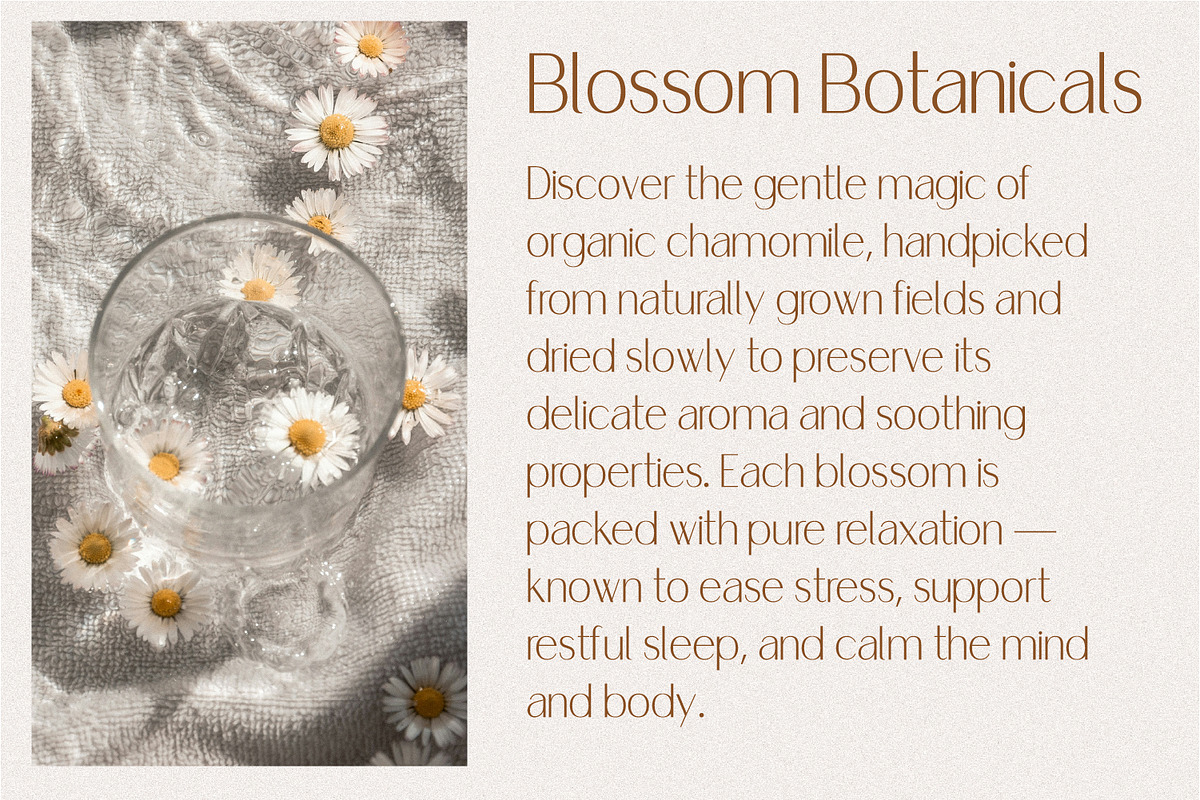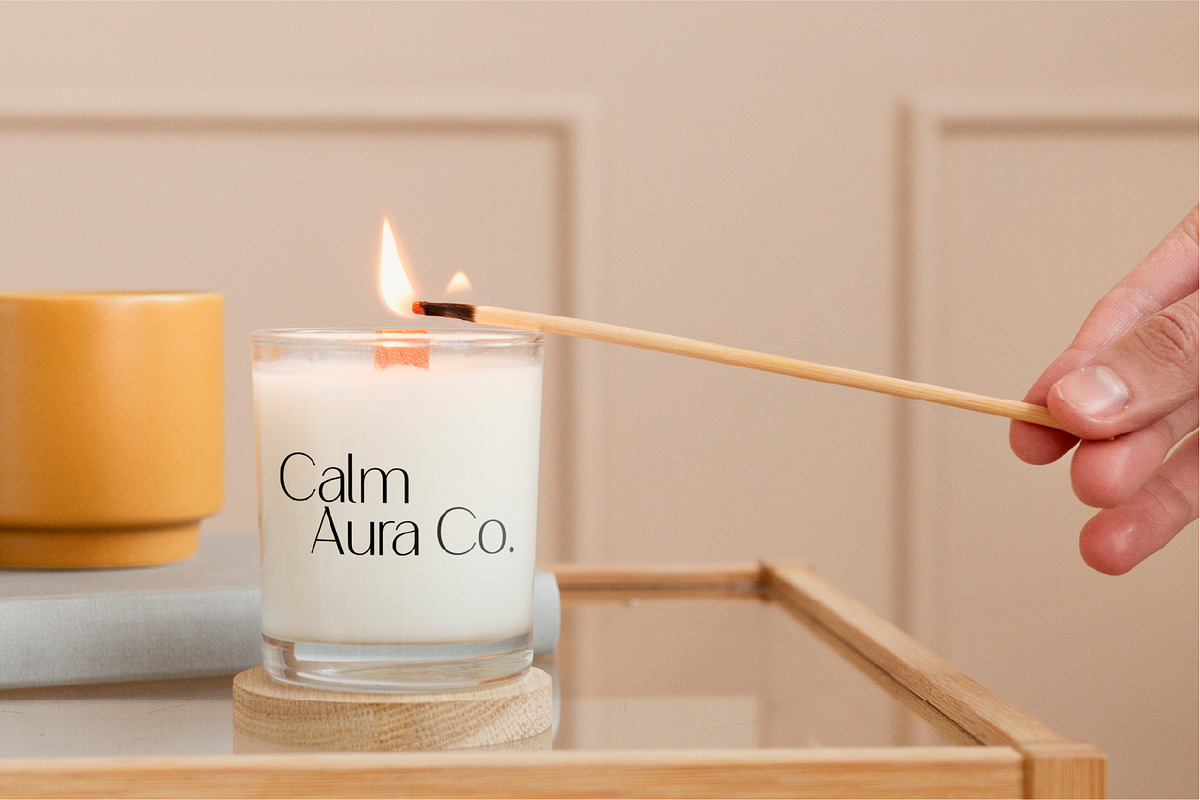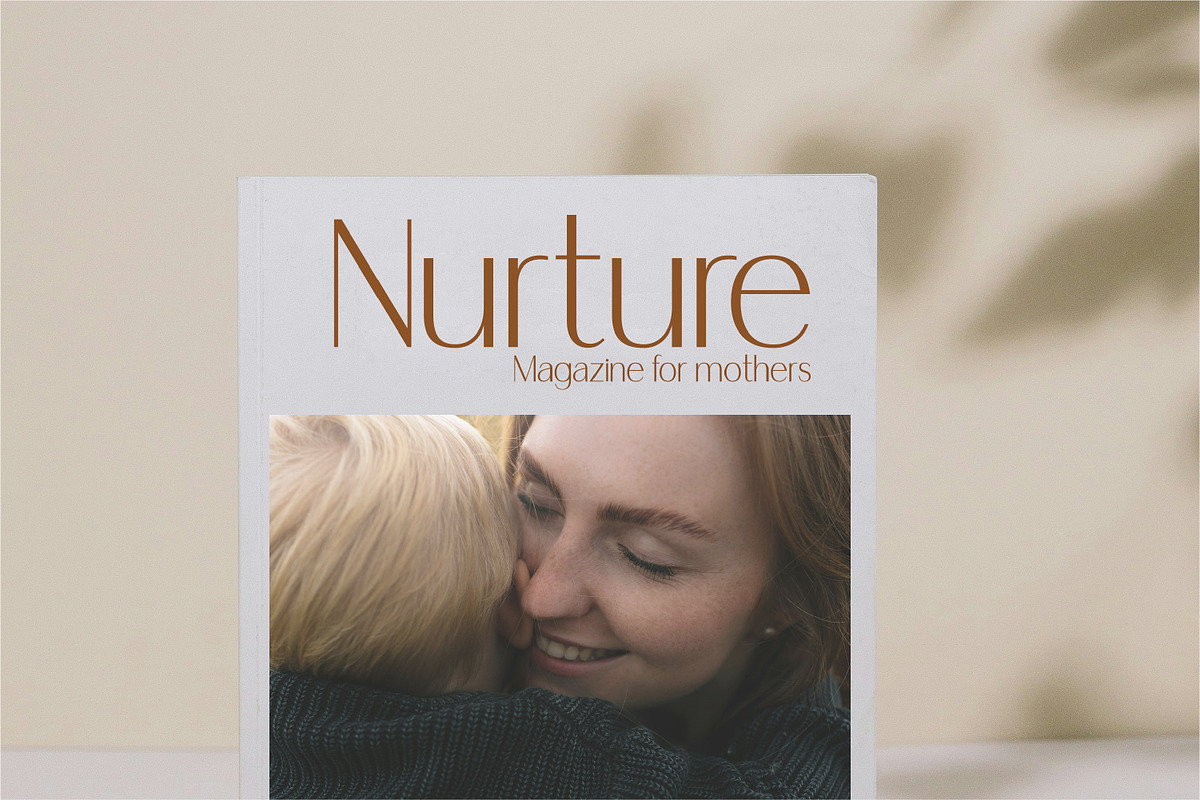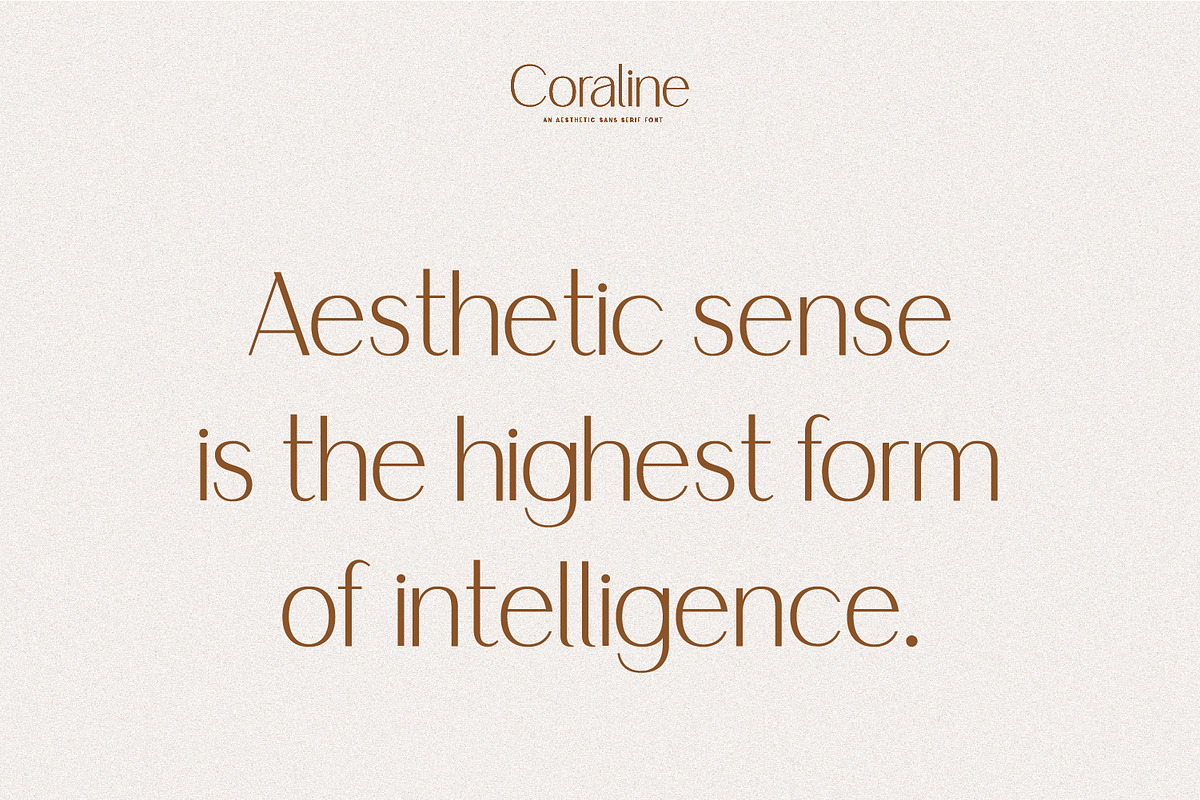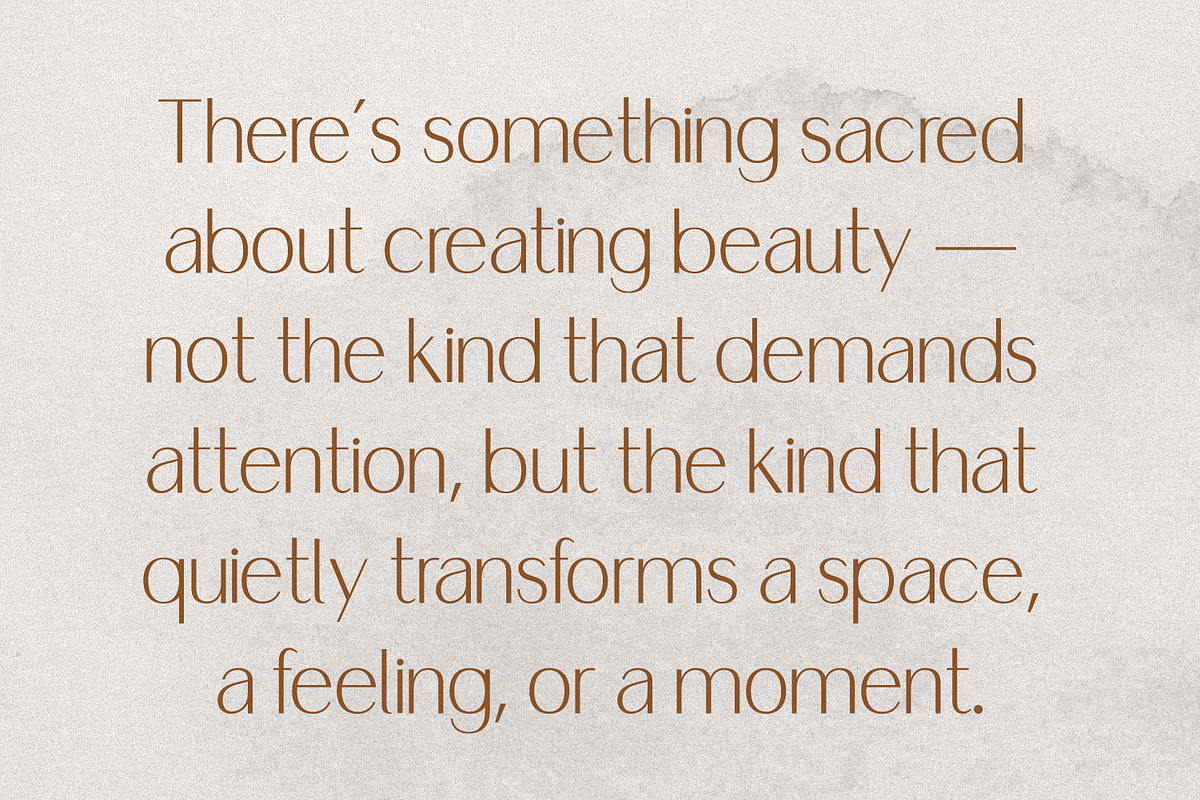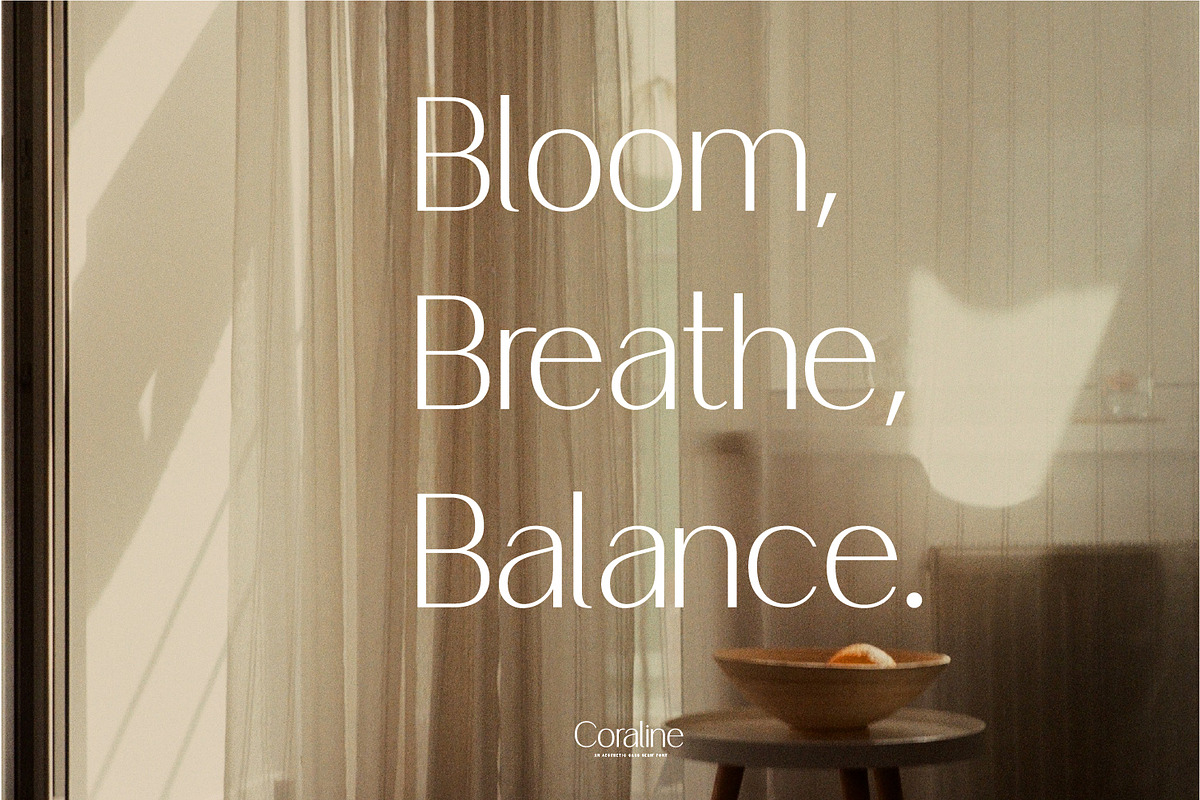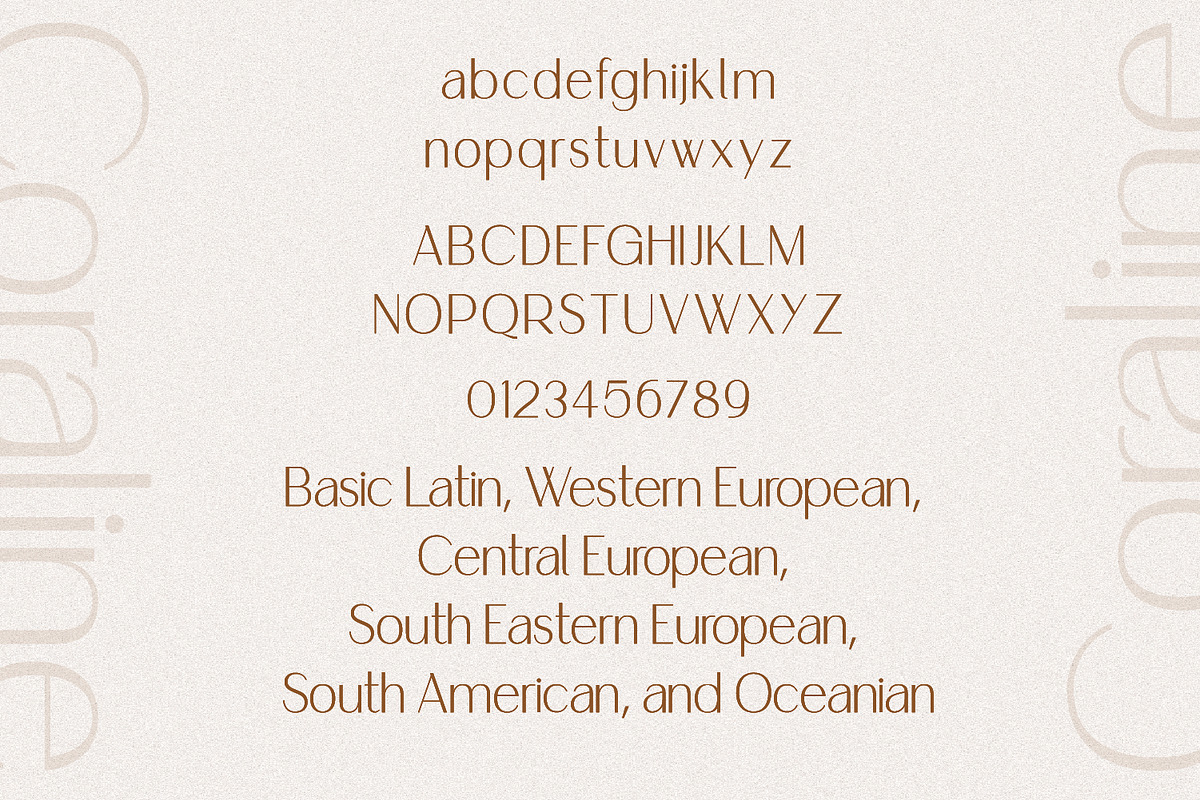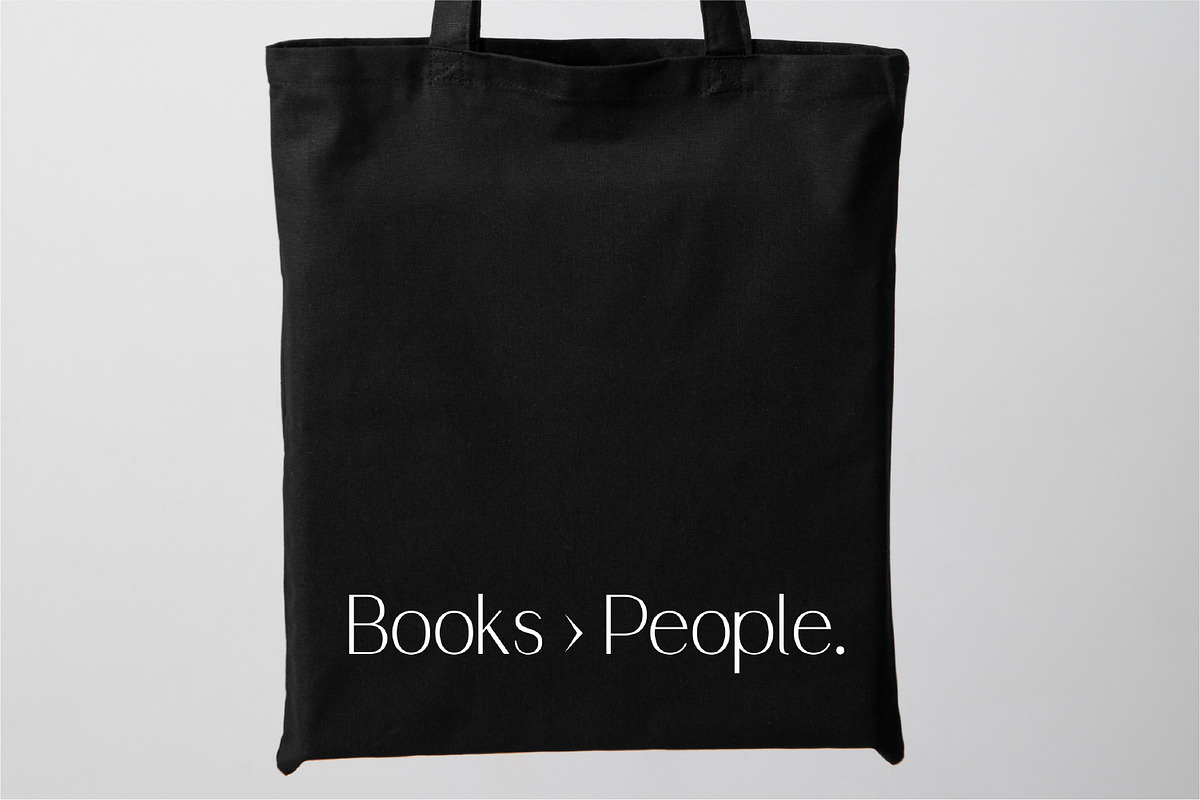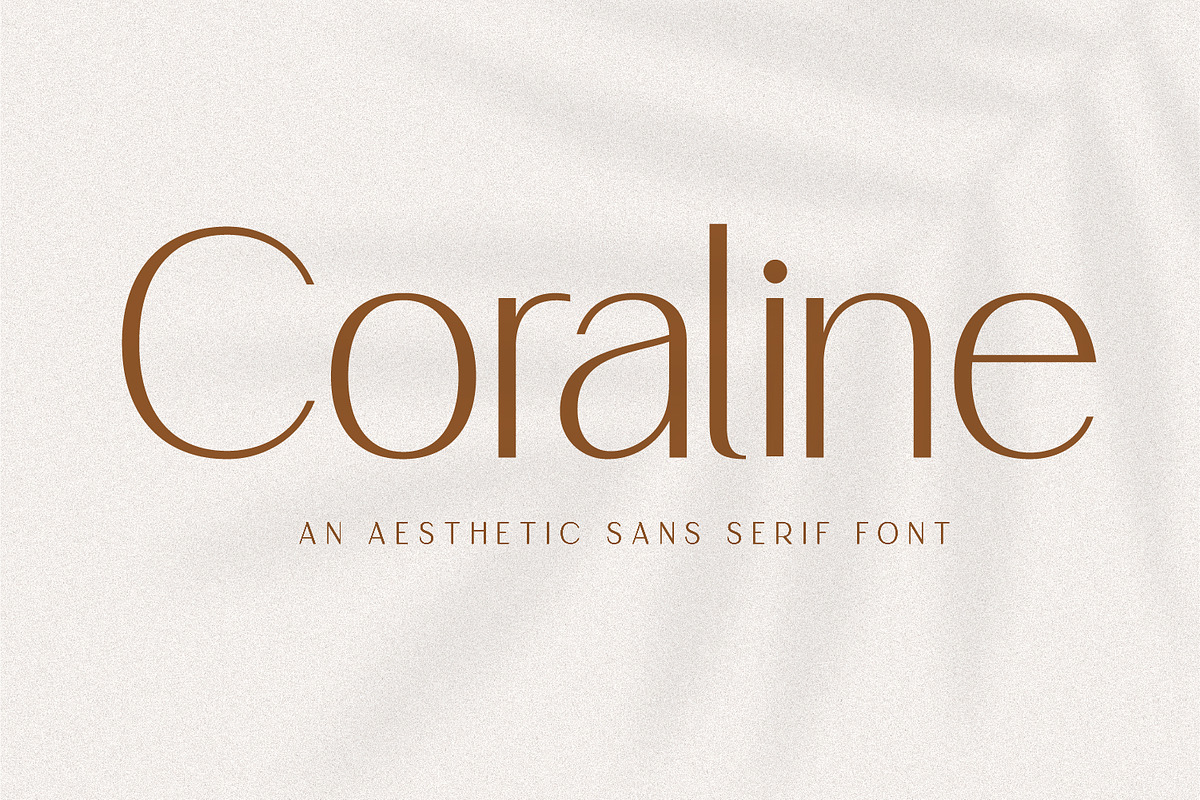
Coraline Sans Serif
Coraline is a sleek, minimal sans-serif font with a clean modern aesthetic. Perfect for branding, logos, websites, packaging, and editorial projects. Its balanced letterforms bring elegance and simplicity to any design.
- Smooth kerning and clean geometry
- Modern, minimalist style
- Great readability for headings & body text
- Works beautifully for logos, posters, and social media
Language Support: Basic Latin, Western European, Central European, South Eastern European, South American, and Oceanian*